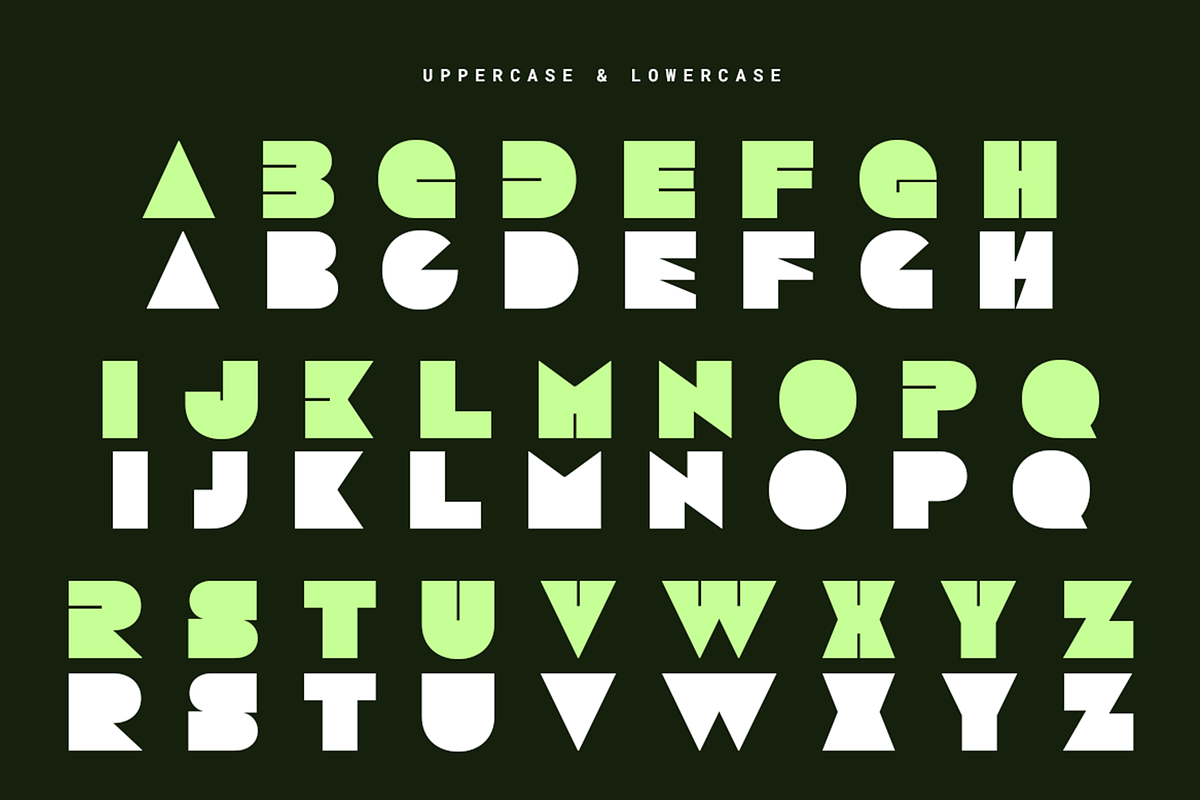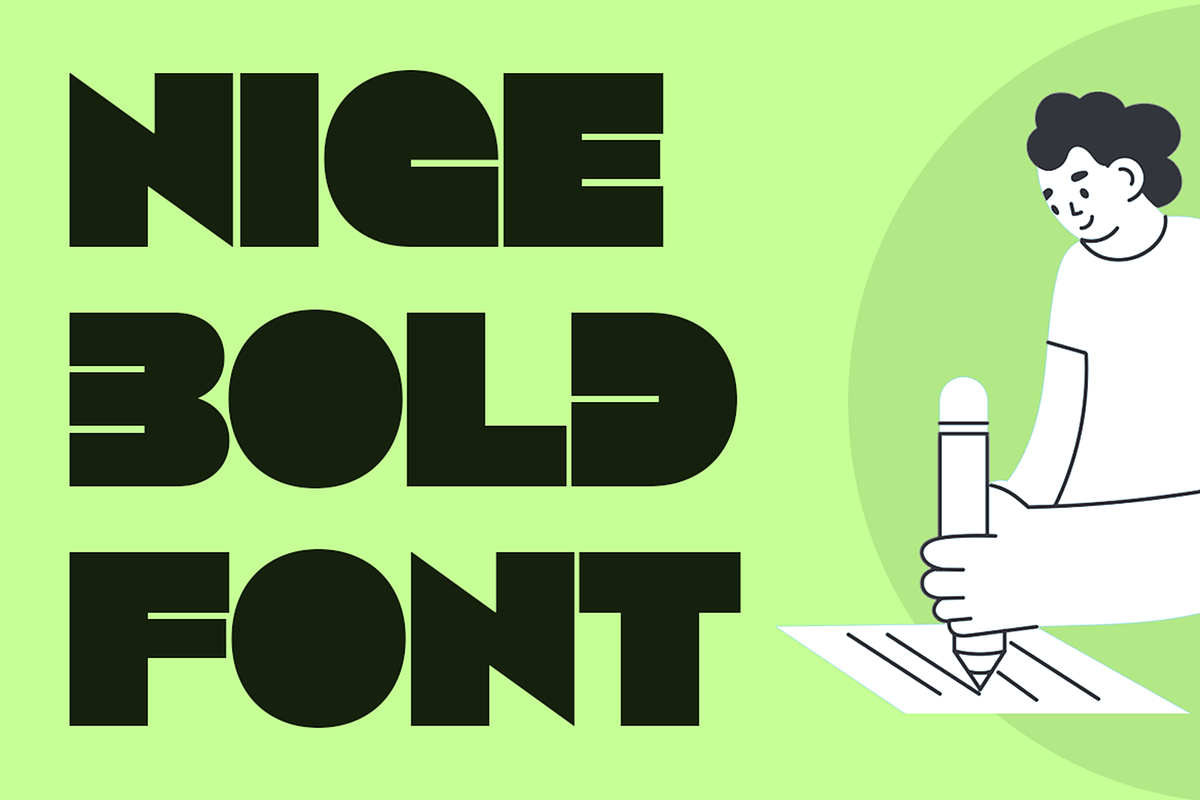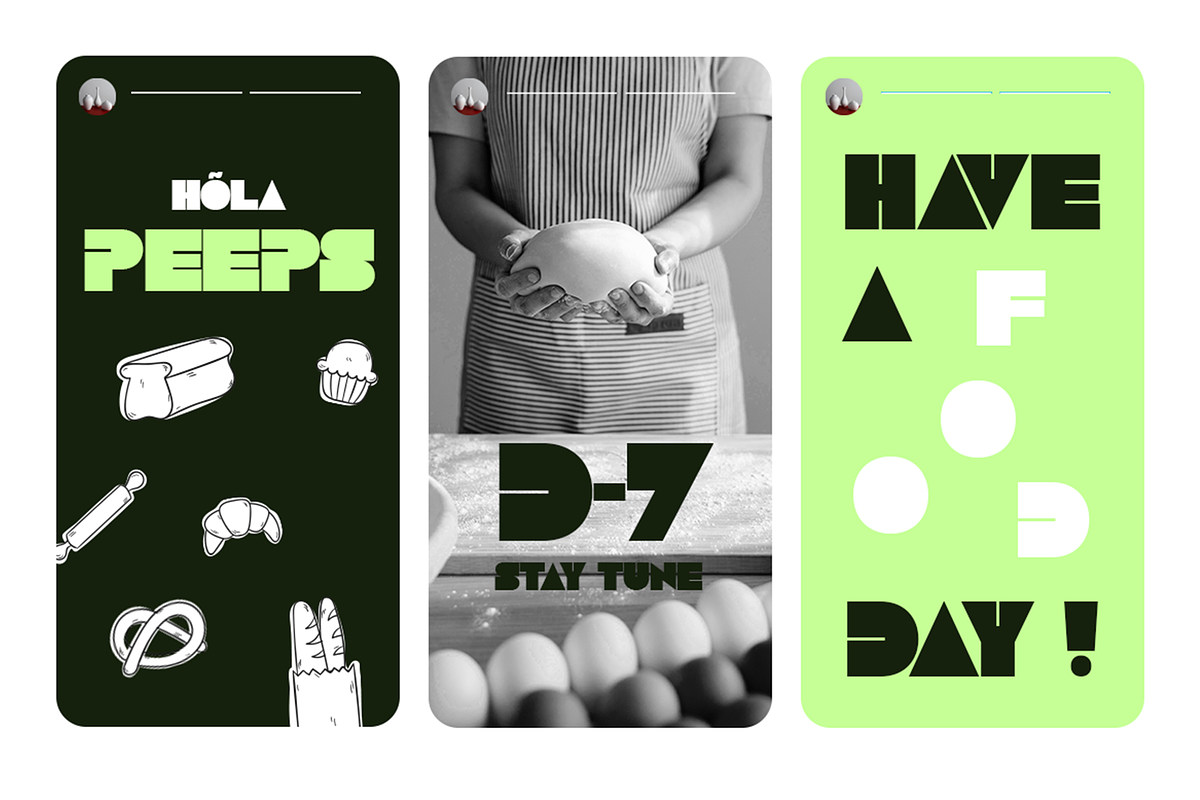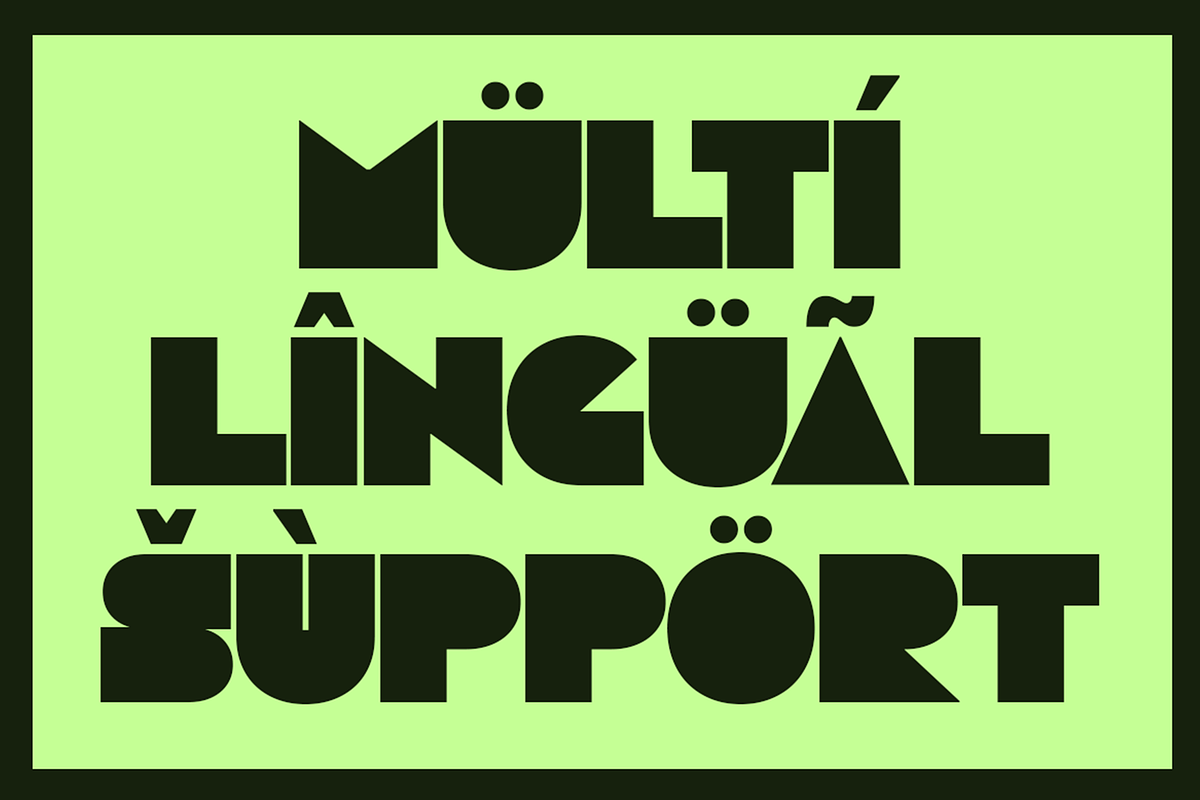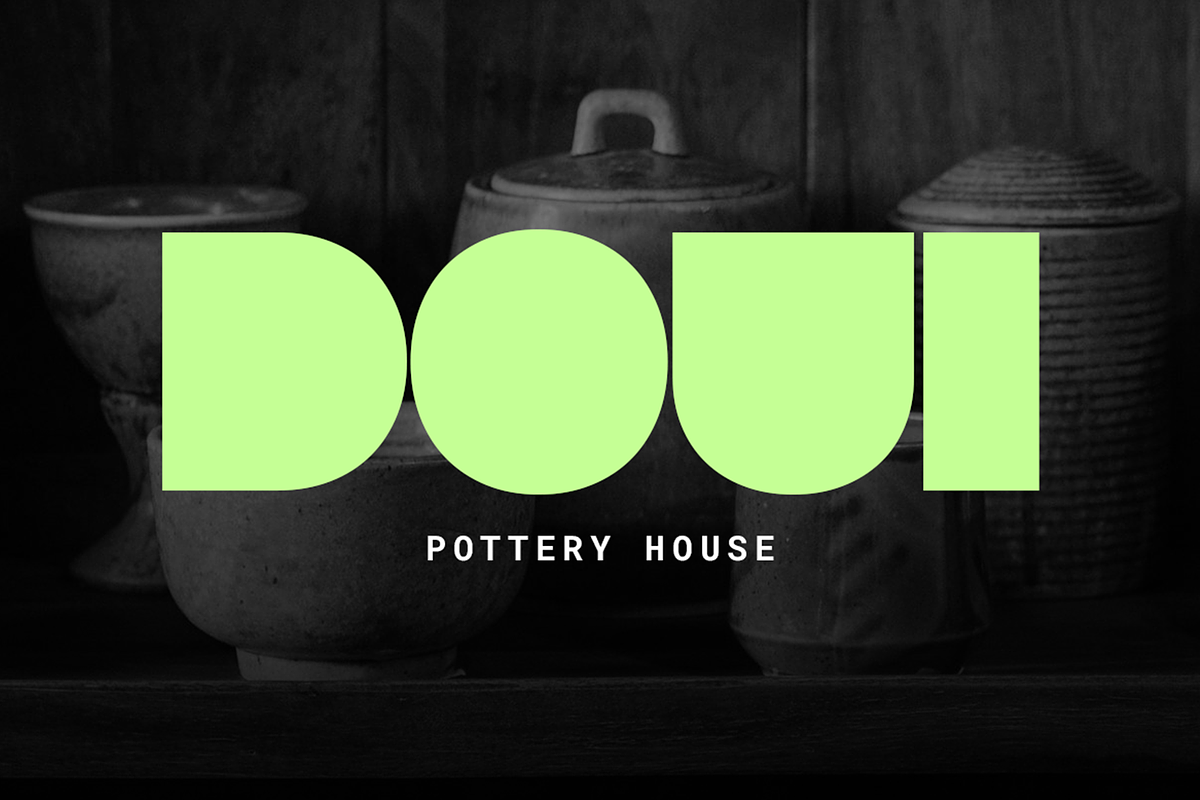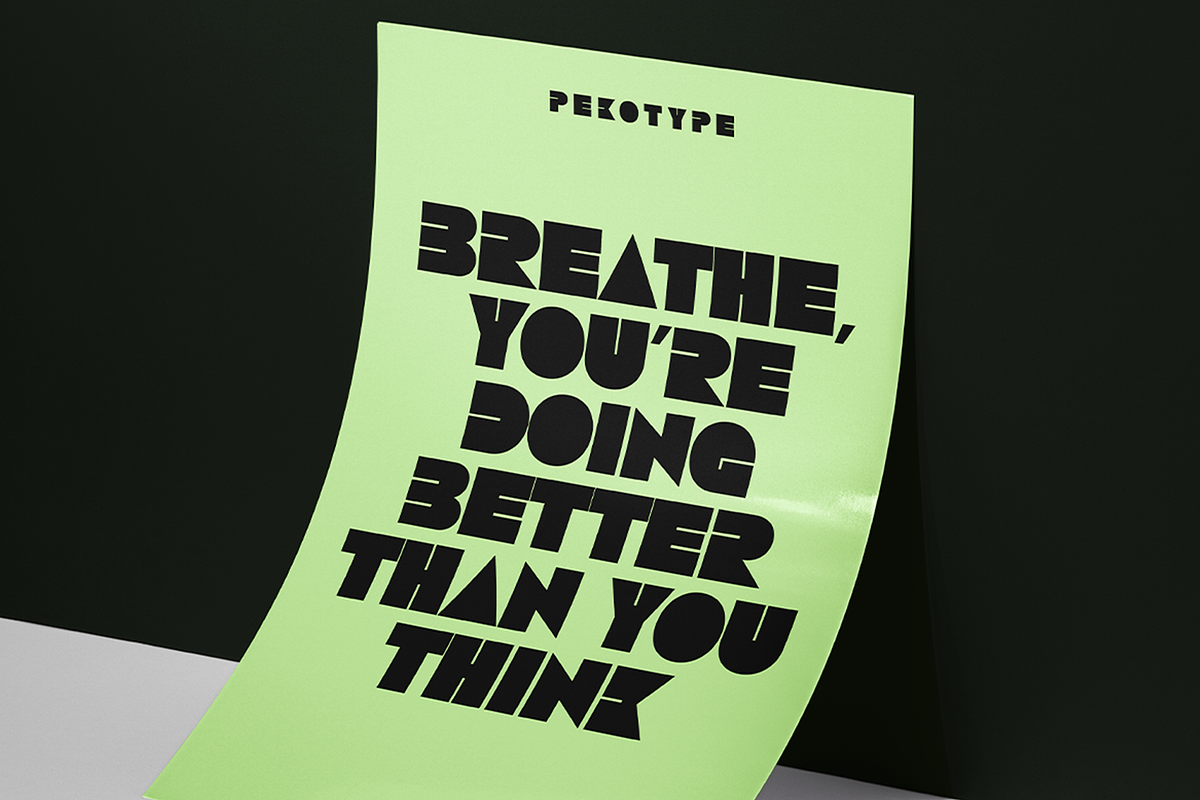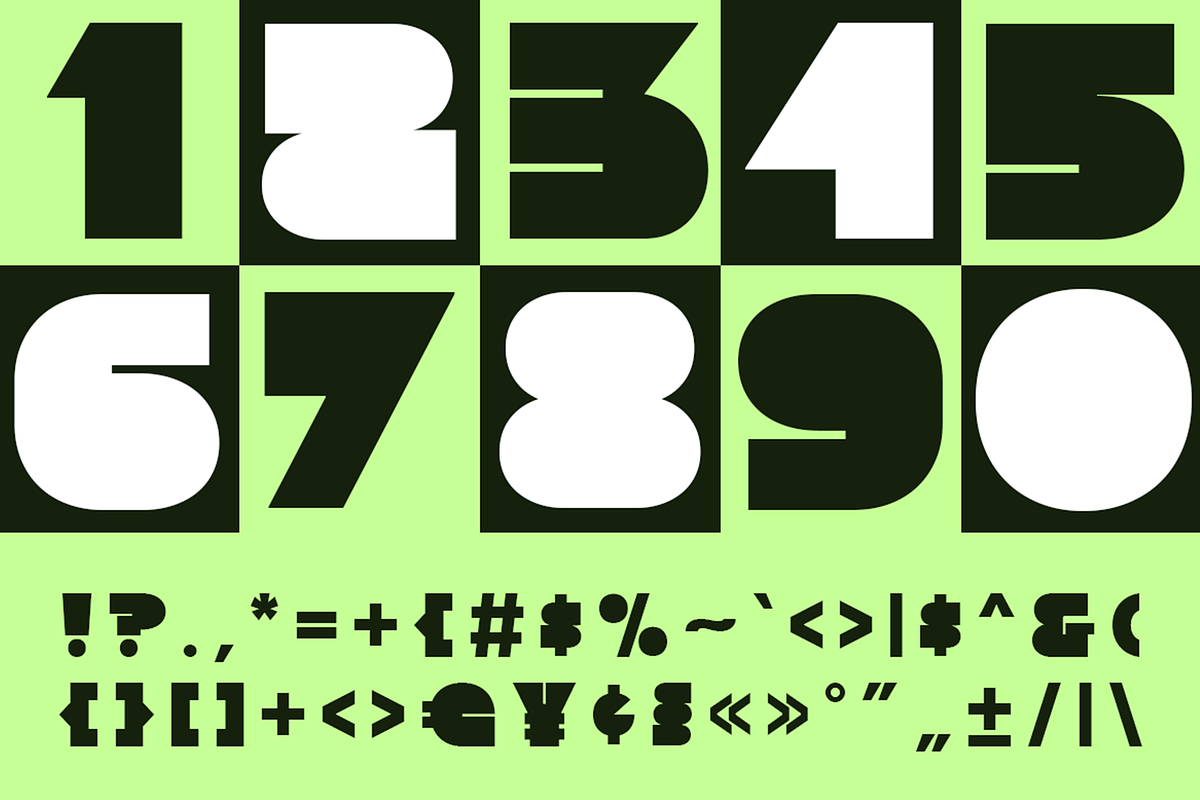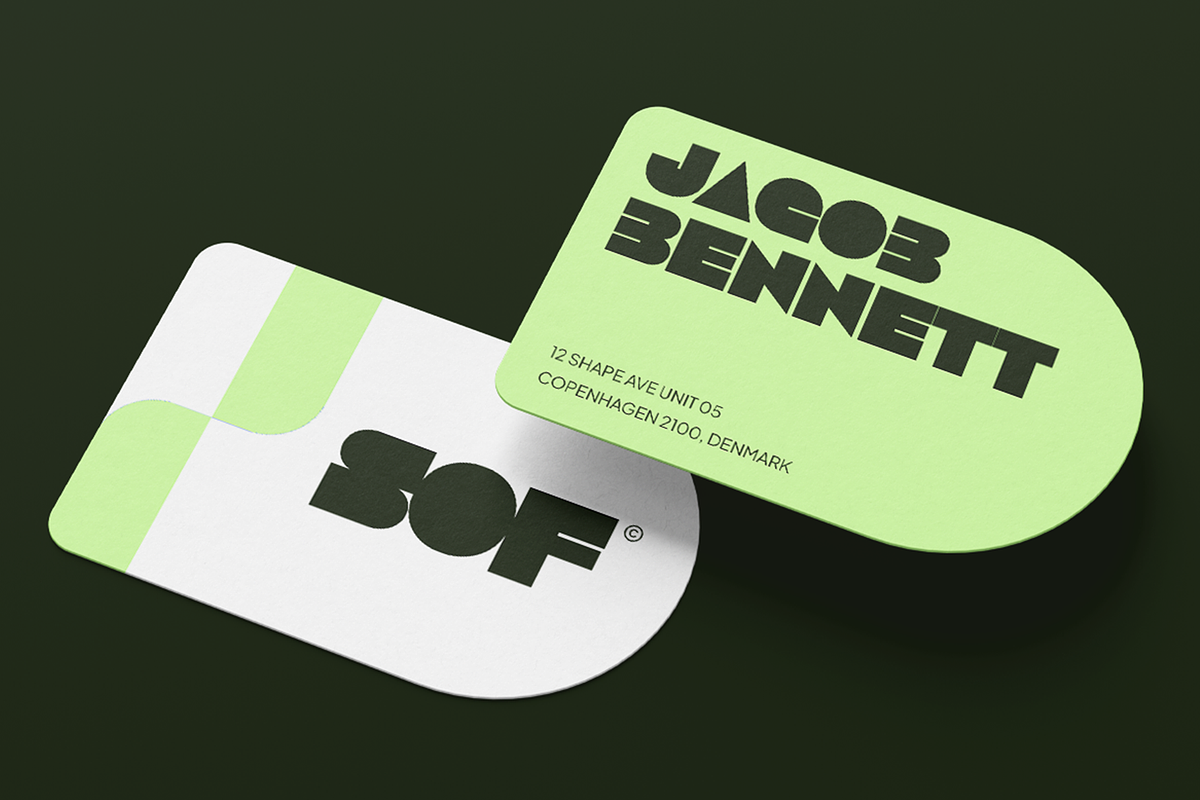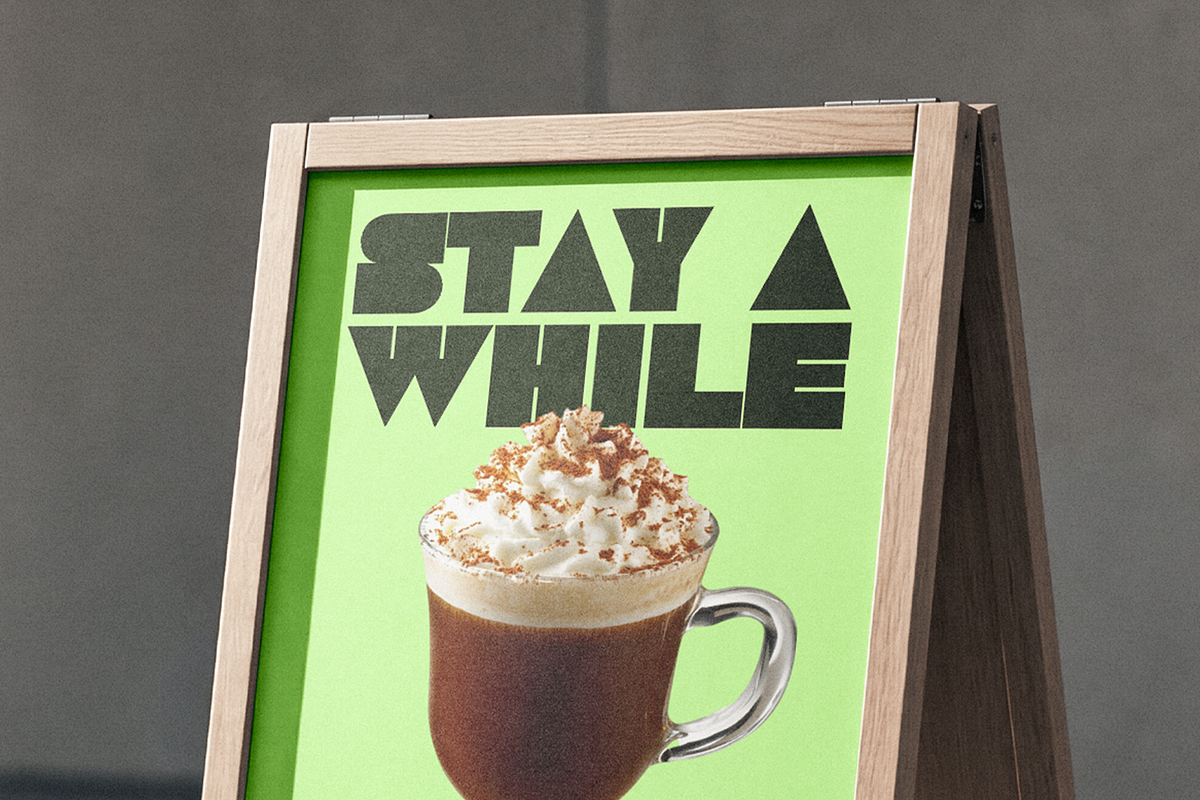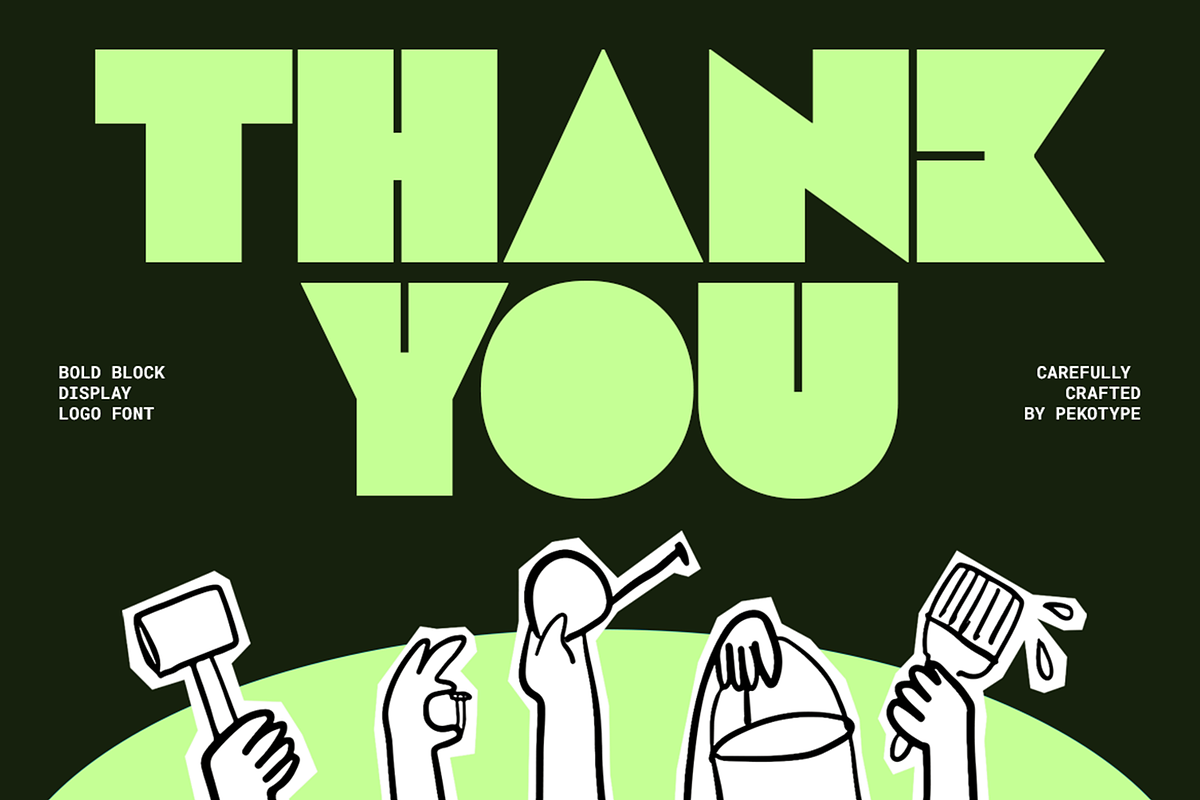
Nobu - Bold Block Display Logo Font
NOBU is a bold block display font with strong geometric shapes and a fun modern vibe. The chunky letters and unique cuts give this font a loud, confident, and playful personality that instantly grabs attention. Even with its bold style, NOBU still feels clean and balanced, making it easy to use for many creative projects.
This font is perfect for logos, posters, branding, packaging, social media graphics, café menus, signage, event promotions, creative headlines, editorial layouts, and modern visual identities. NOBU works really well when you want your design to feel eye-catching, trendy, energetic, and full of character without looking too complicated.
Number, Symbol, & Punctuation